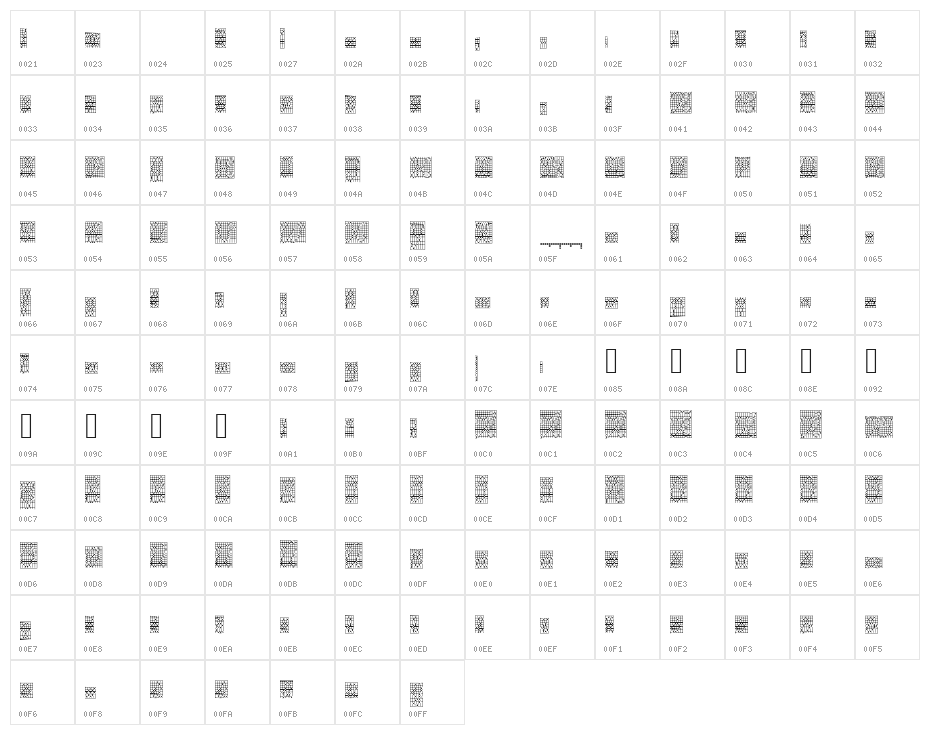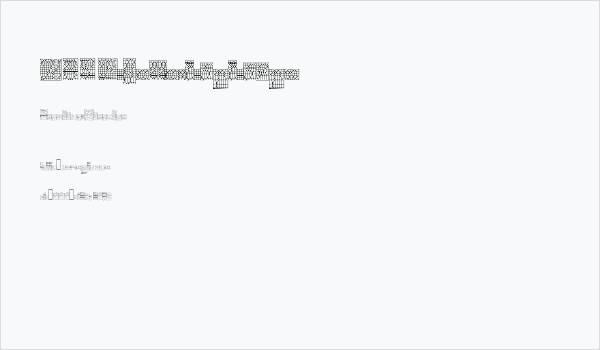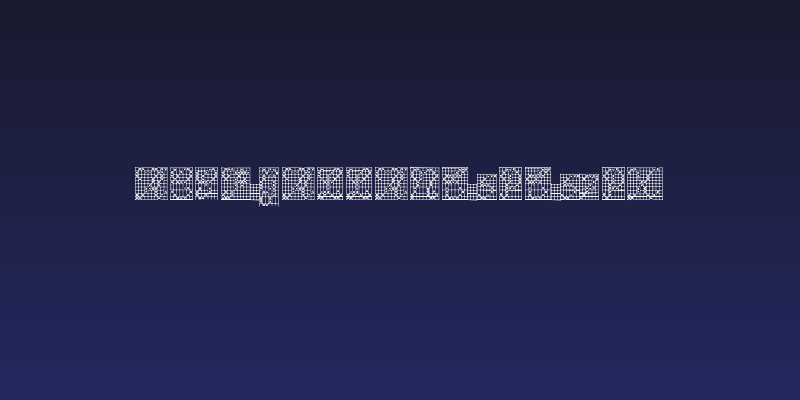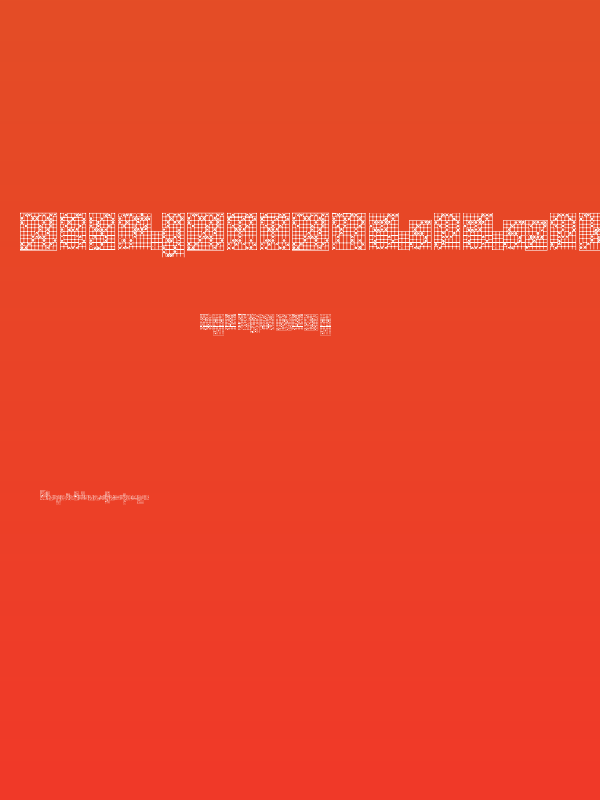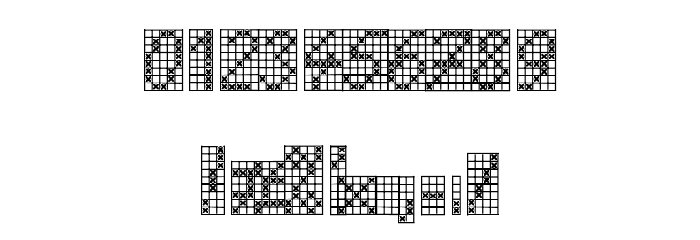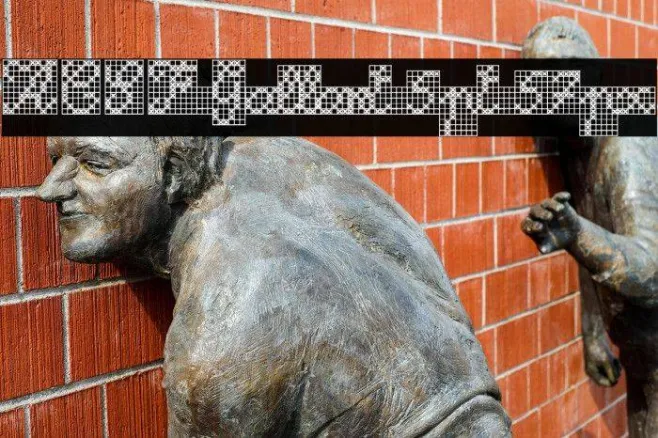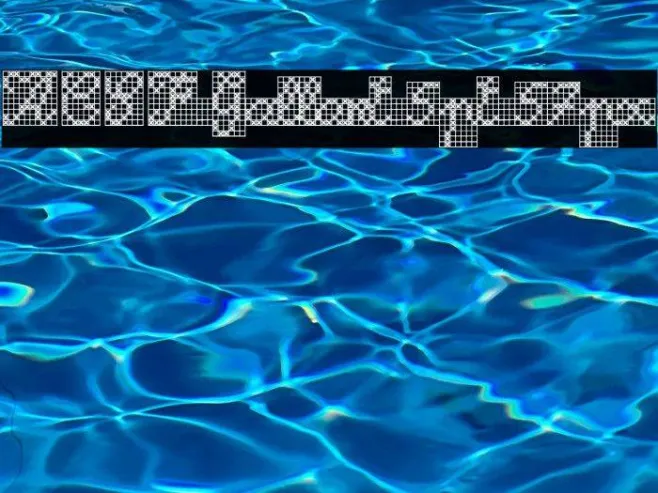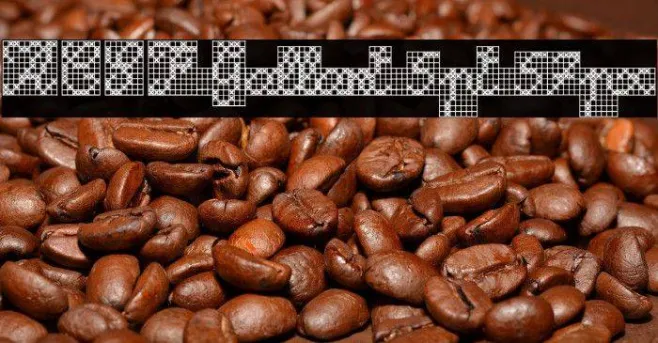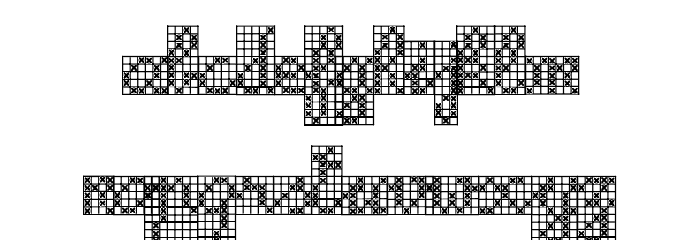
ACSF Gallant 5pt 57px Font
ACSF Gallant 5pt 57px Description
This font features a unique, grid-like design where each character is composed of small squares filled with intricate patterns. The overall appearance is reminiscent of digital or pixel art, giving it a distinct and modern aesthetic. The characters are evenly spaced and maintain a consistent height, providing a uniform look across both uppercase and lowercase letters. Numbers and special characters follow the same design principles, ensuring a cohesive style throughout. The font's geometric nature makes it stand out, offering a creative twist on traditional typography.
| Use Case | Logos, Headlines, Digital Art |
| Proposed Projects | Ideal for digital art projects, video game design, tech-themed posters, and creative branding. |